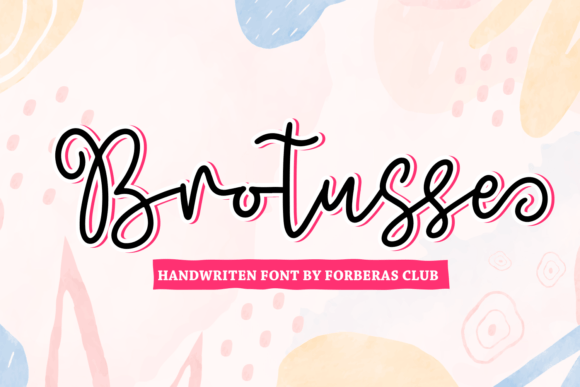
Feast your eyes upon Brotusse Font, a majestic script font that emanates elegance and enchantment at every stroke. Immerse yourself in the world of vintage charm with this exquisite creation, crafted by Forberas Club, the masters of timeless artistry.
Brotusse Font possesses an alluring personality, beckoning you to unleash your creativity and transport your designs into an era of sophistication. Its graceful curves and intricate details evoke a sense of nostalgia, inviting you to pen enchanting tales and create captivating visuals that whisper of a bygone era.
Imagine crafting wedding invitations that exude timeless beauty, with Brotusse Font swirling across the page like a love letter from a distant time. Envision logos and brand identities that radiate elegance and distinction, leaving an indelible mark on your customers' minds. Whether you're designing posters, flyers, social media graphics, or product packaging, Brotusse Font will infuse your work with a touch of grace and sophistication that is sure to captivate your audience.
Transport your readers to a realm of literary enchantment with Brotusse Font, the perfect companion for vintage book covers, book quotes, and literary-inspired projects. Its enchanting allure will draw readers into your stories, making them feel as if they've stumbled upon a hidden treasure.
Brotusse Font is your gateway to a world of endless creative possibilities. With its versatility, you can weave magic across a multitude of platforms, from digital designs to tangible creations. Let your imagination run wild as you explore the boundless potential of this remarkable font, leaving a trail of beauty and elegance wherever you go.